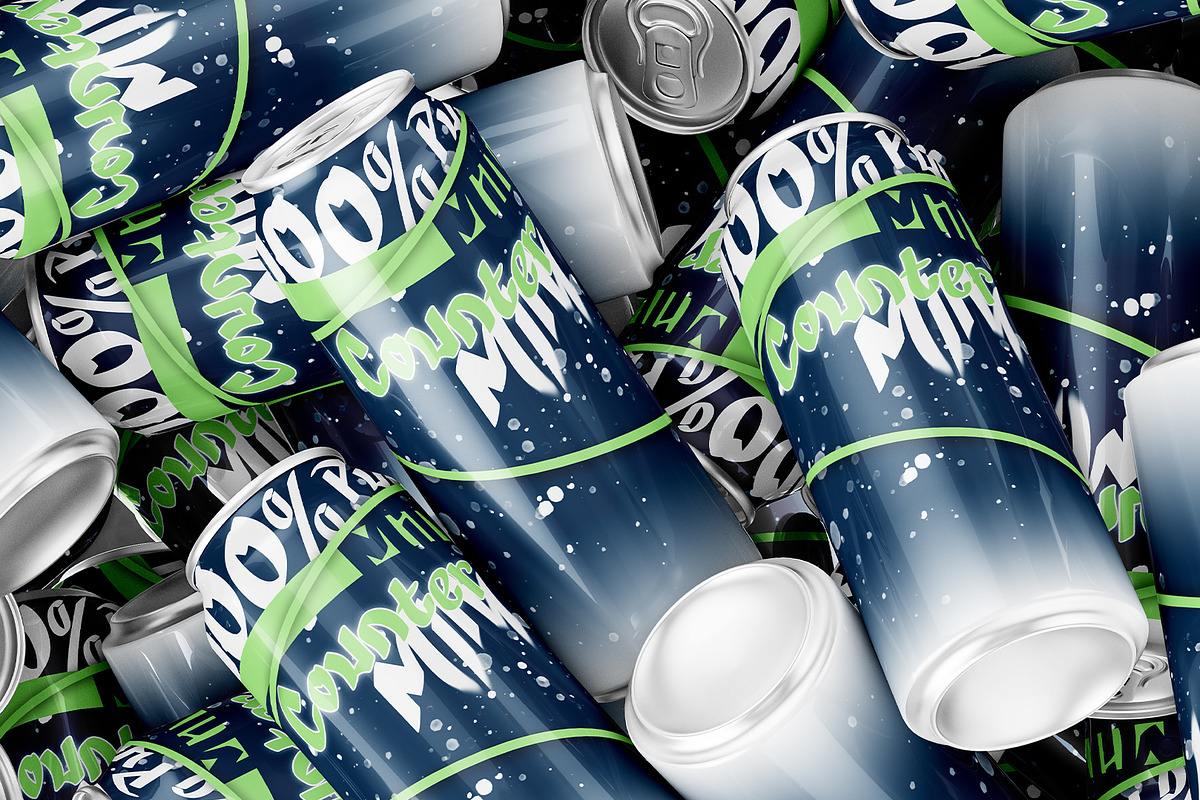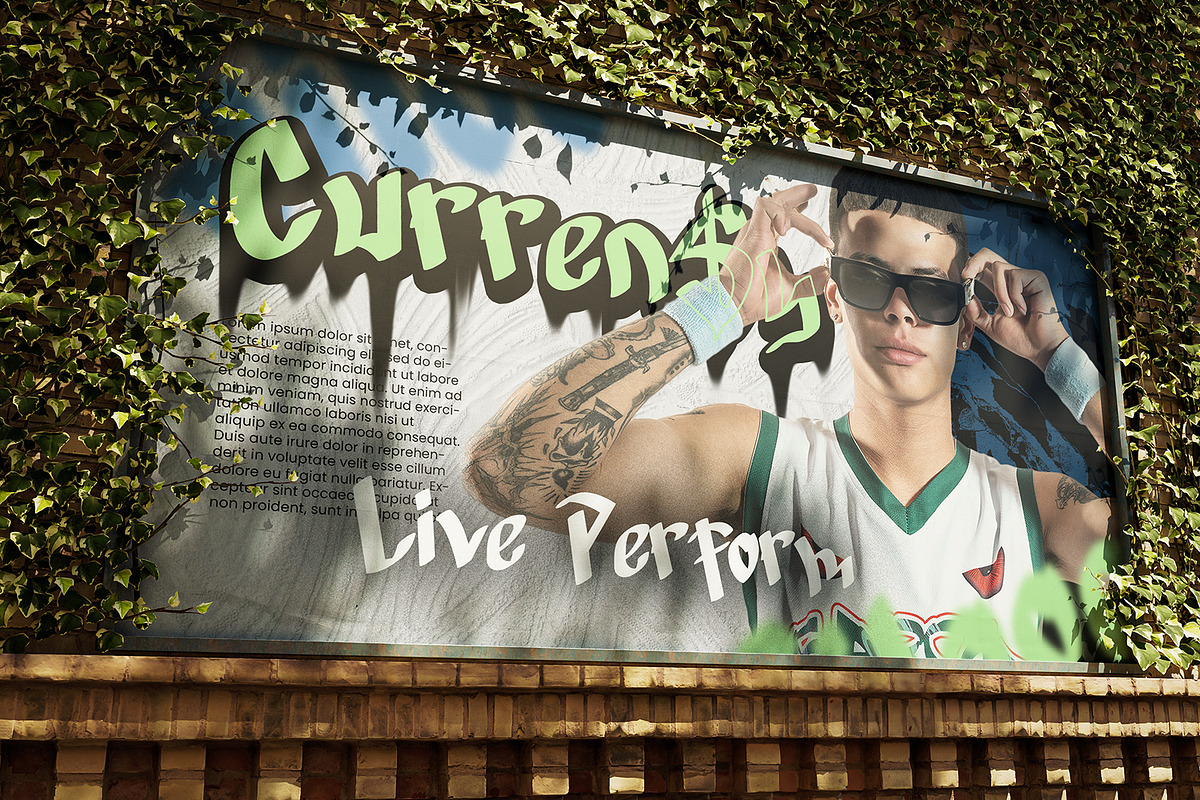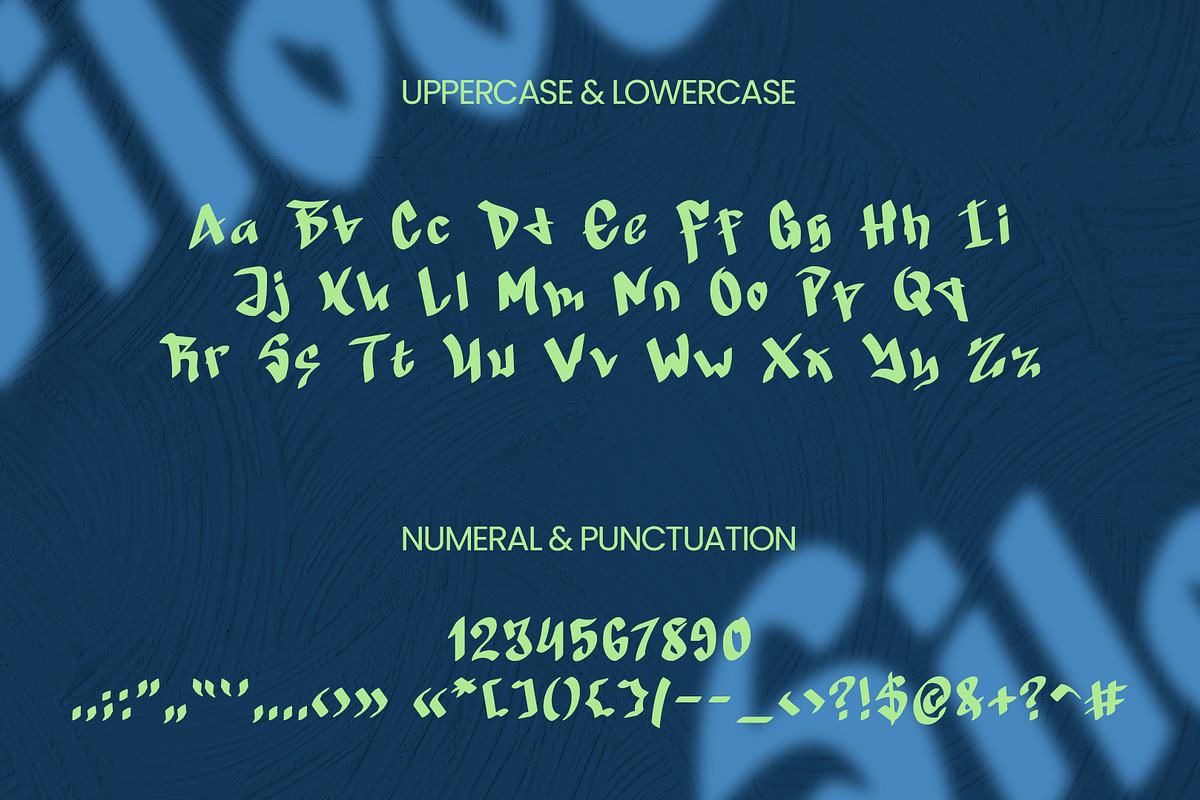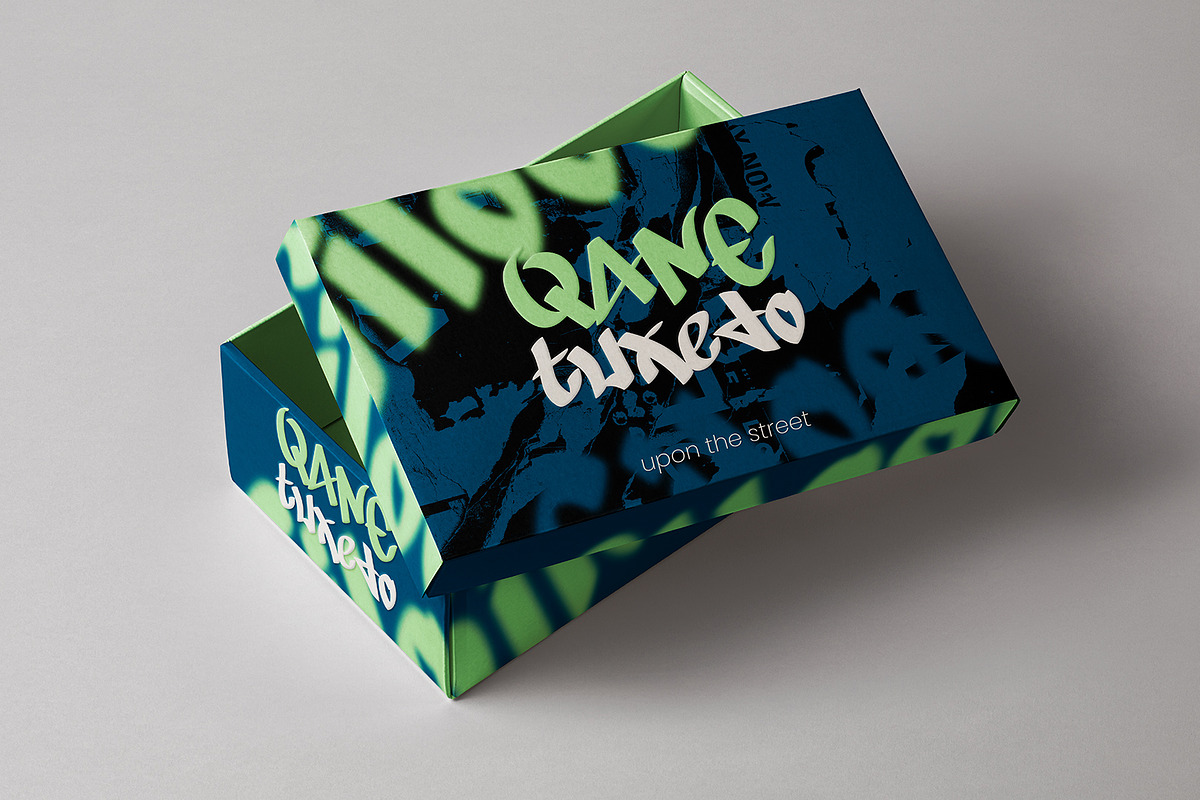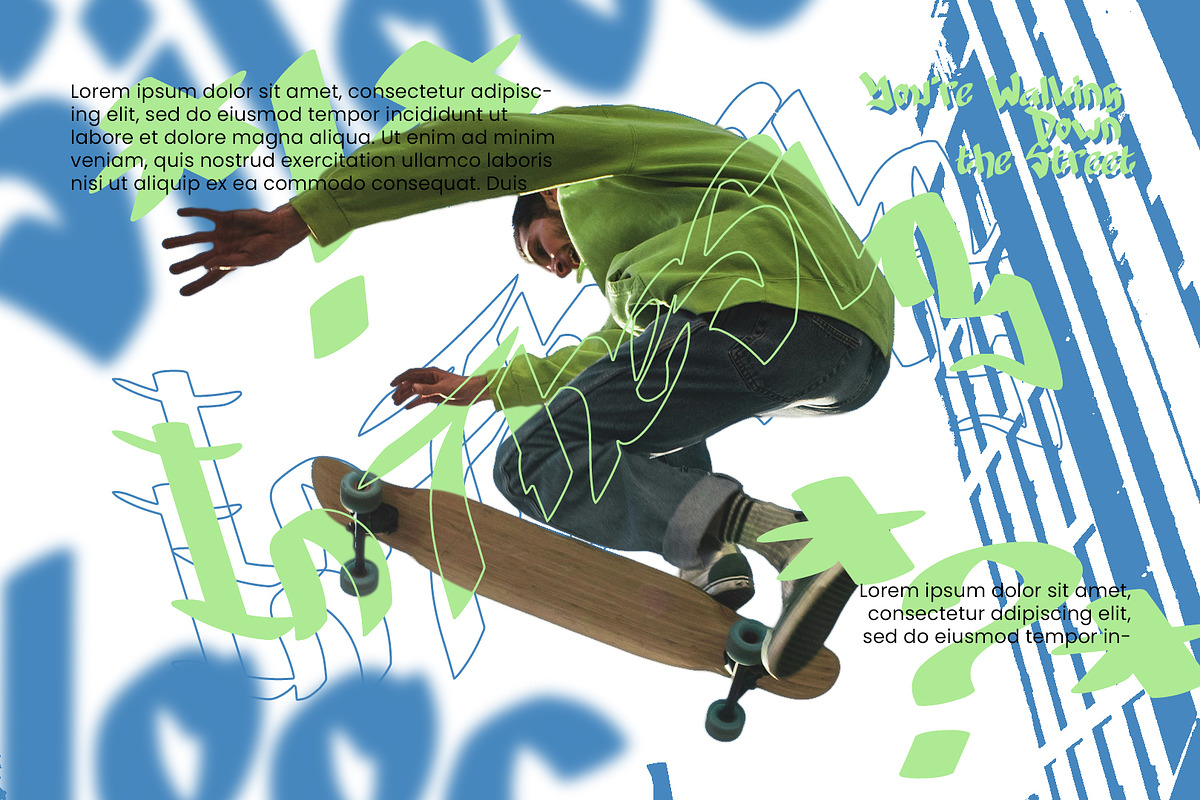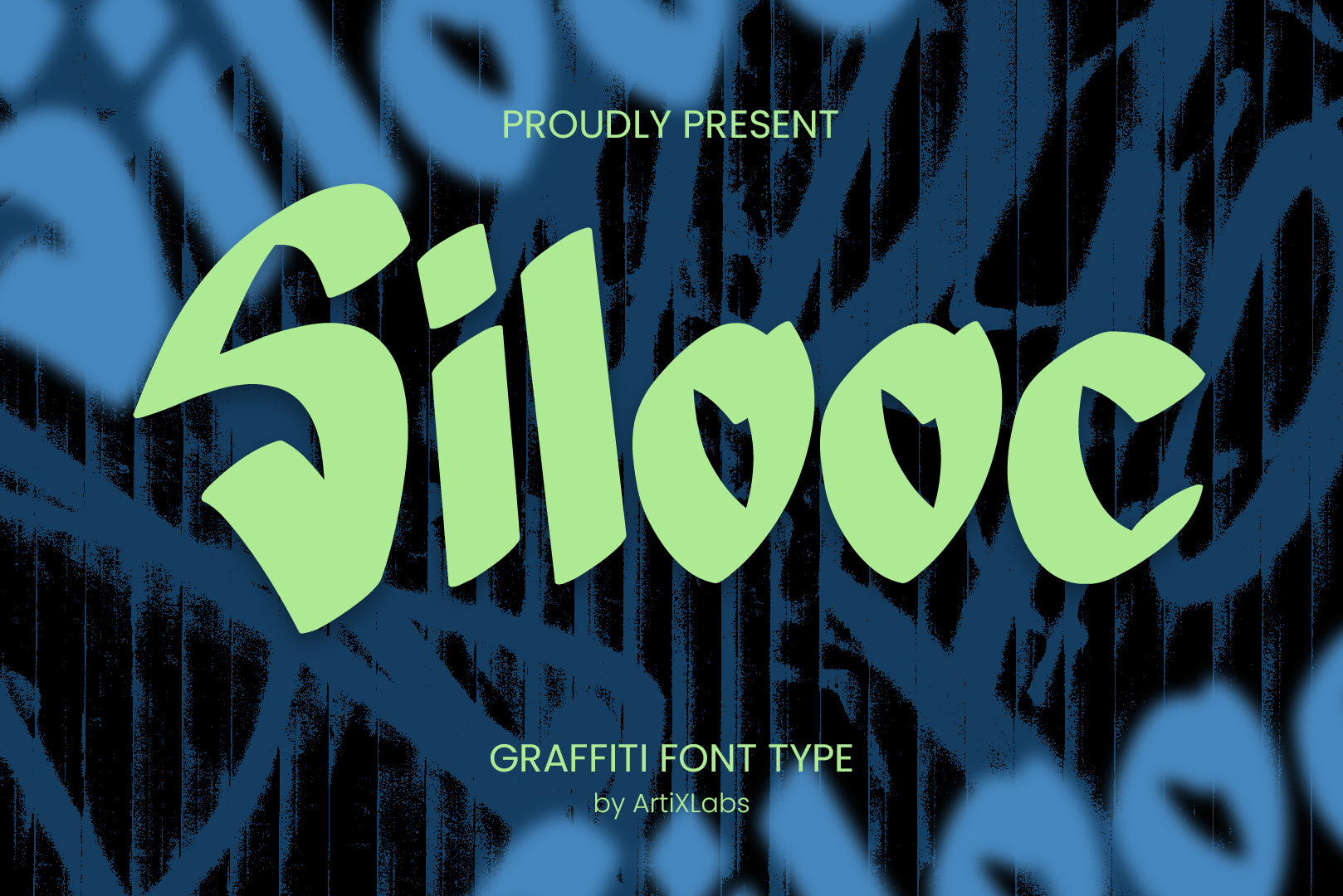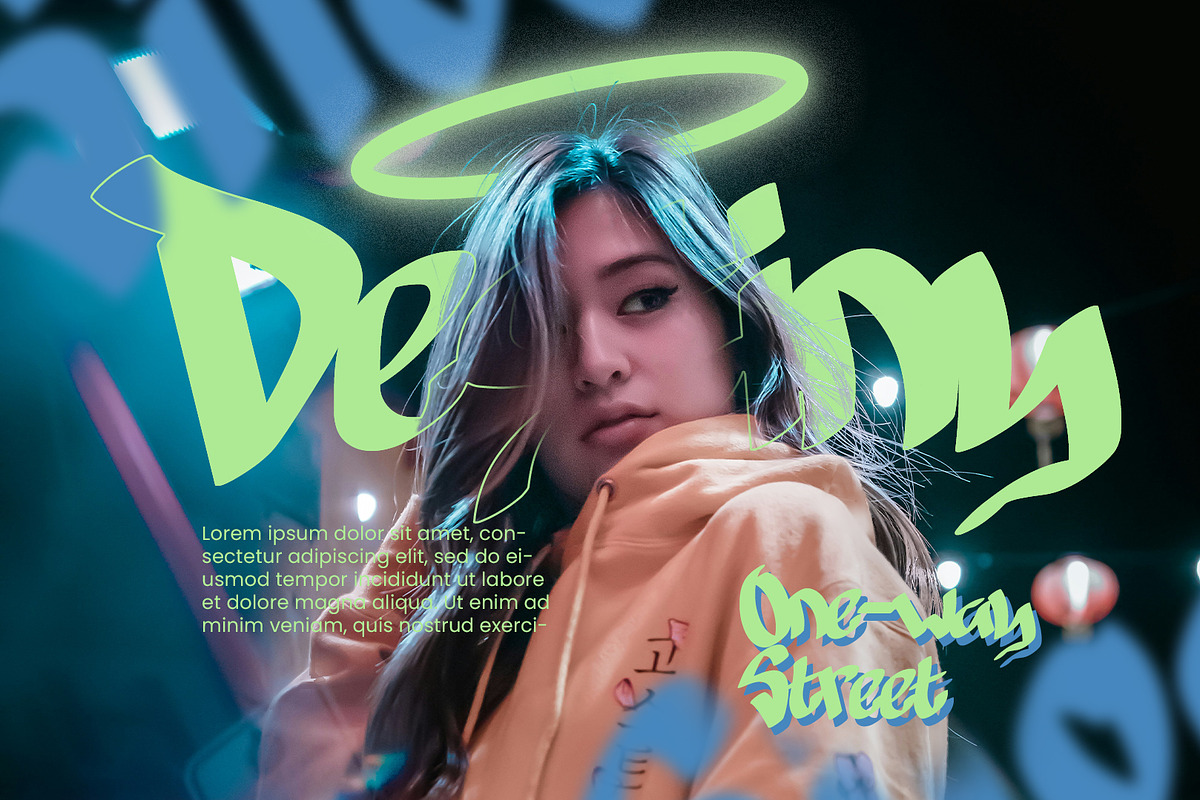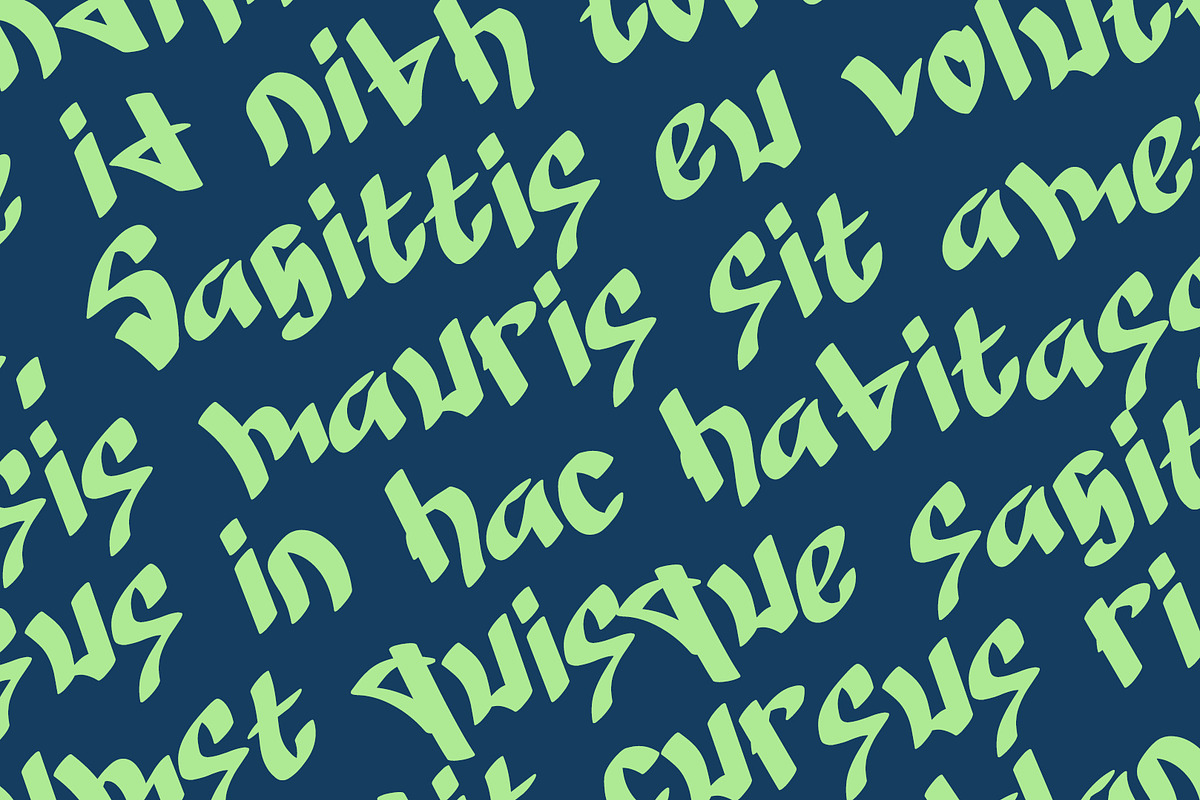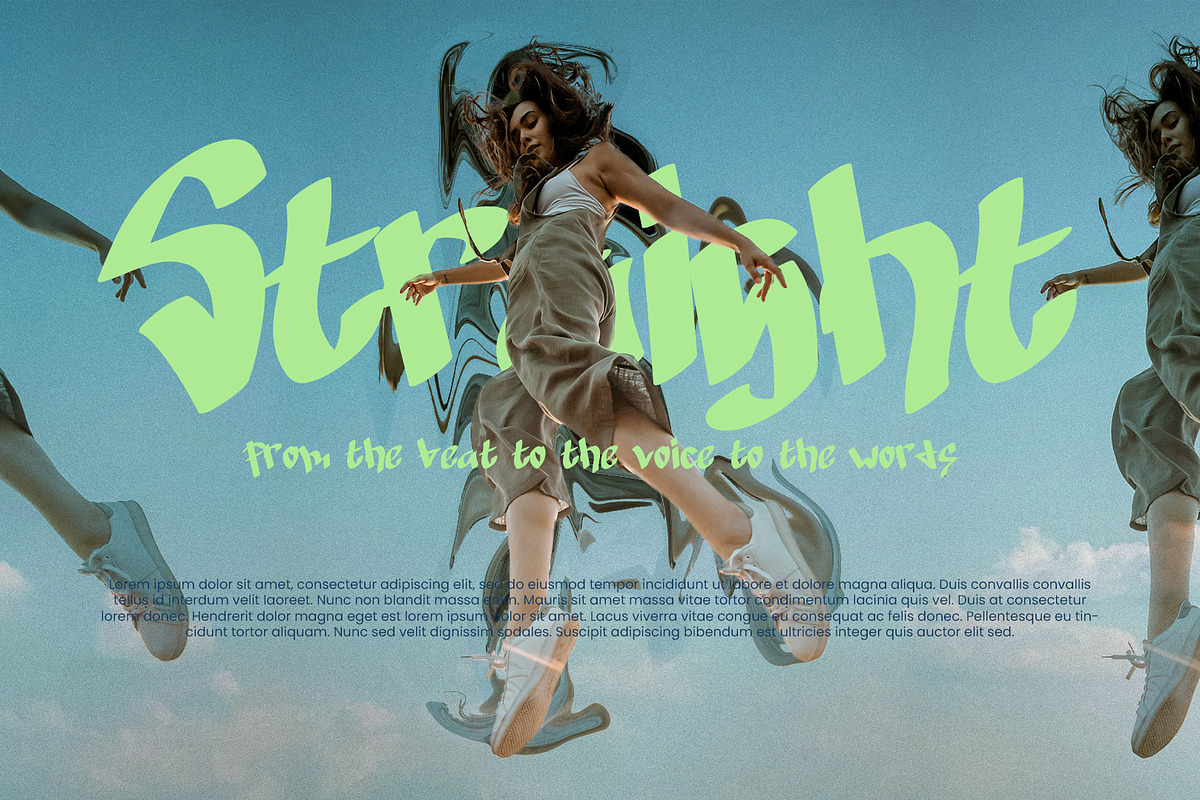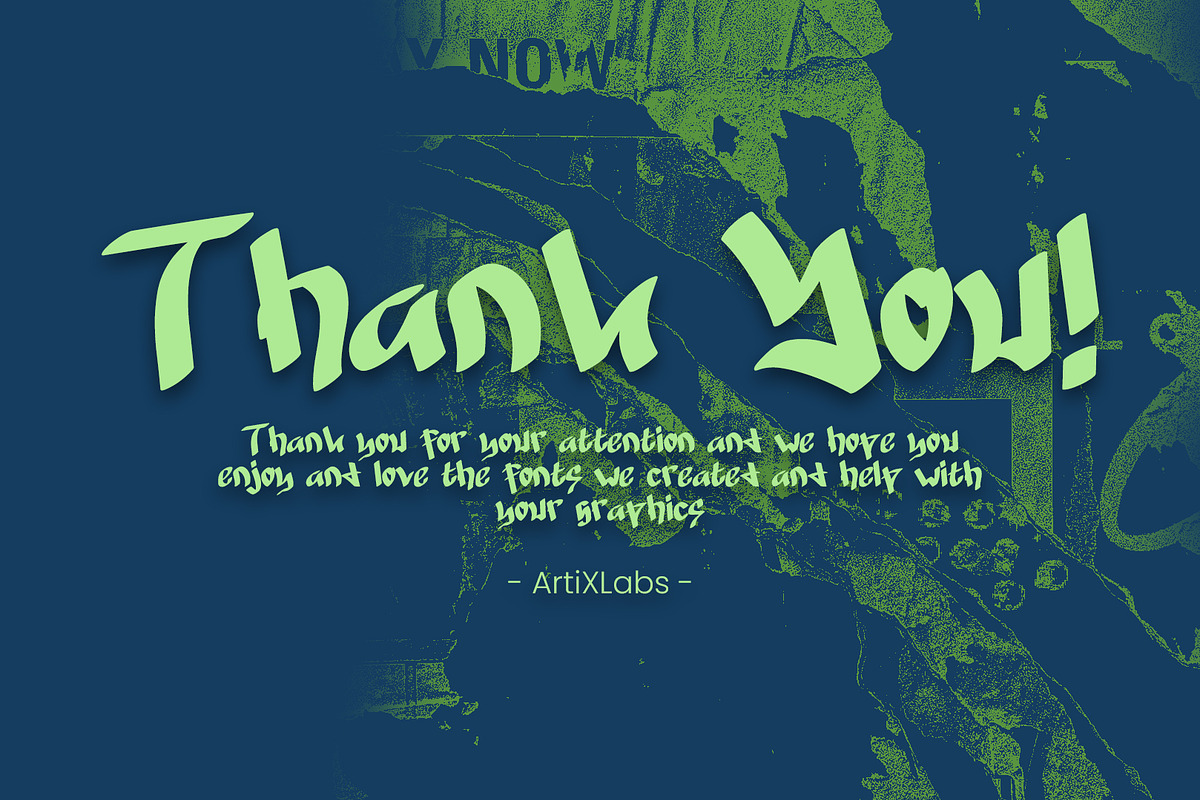
Silooc - Graffiti Font Type
Introducing Silooc - Script Graffiti Font Bold Graffiti Font for Urban Designs & Street Art Projects
Silooc is a wild and expressive graffiti font that captures the raw energy of urban street art. Perfect for posters, album covers, t-shirt designs, and edgy branding, this font brings a rebellious and artistic vibe to your projects. Its bold, uneven strokes and dynamic style make it ideal for designs that demand attention and creativity. This Font can be used for any variety of purposes, such as: Music Album, Poster, Ceremony, Packaging Products, Logo Type, Branding, T-Shirt Design, Website/Blog, Headline Magazine, Brochures and also can be used for other purpose.